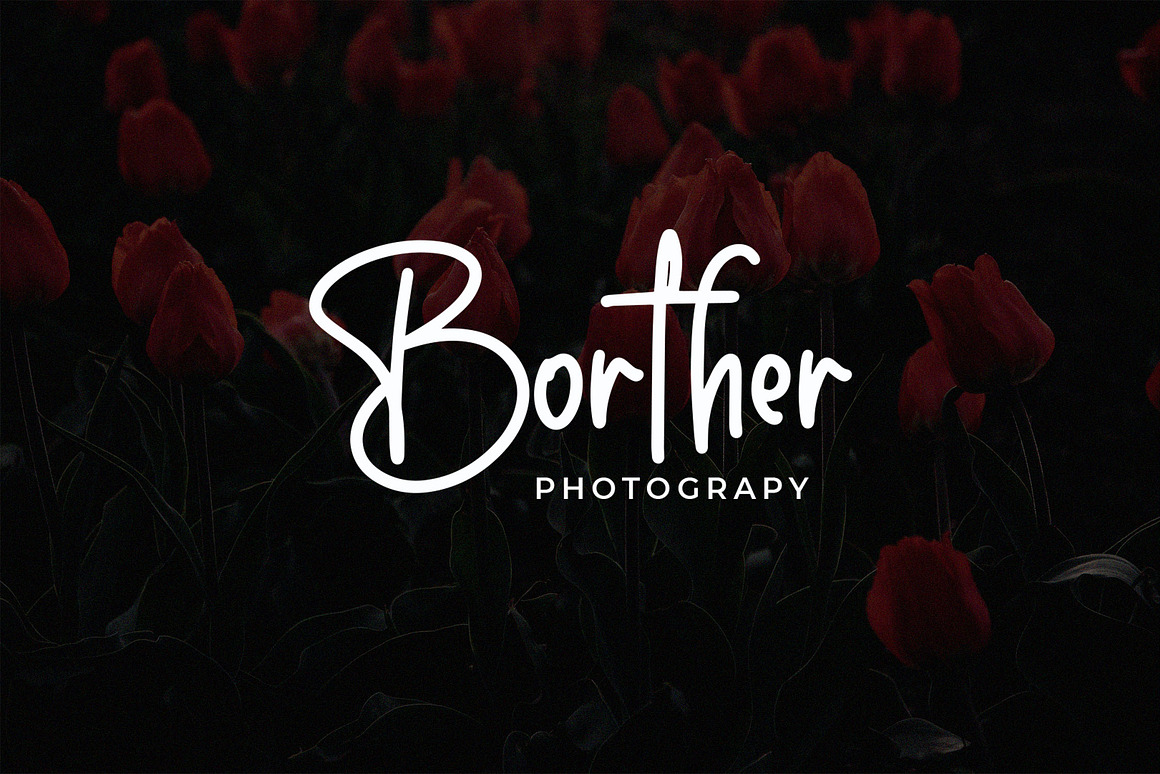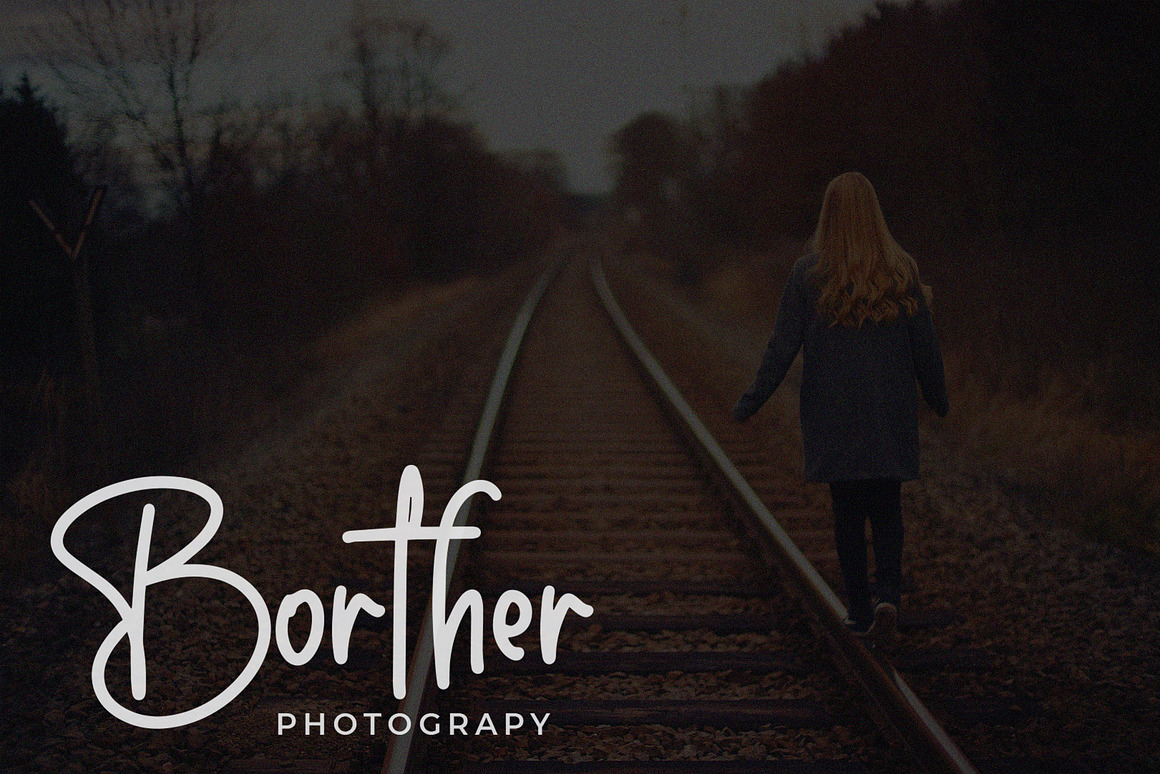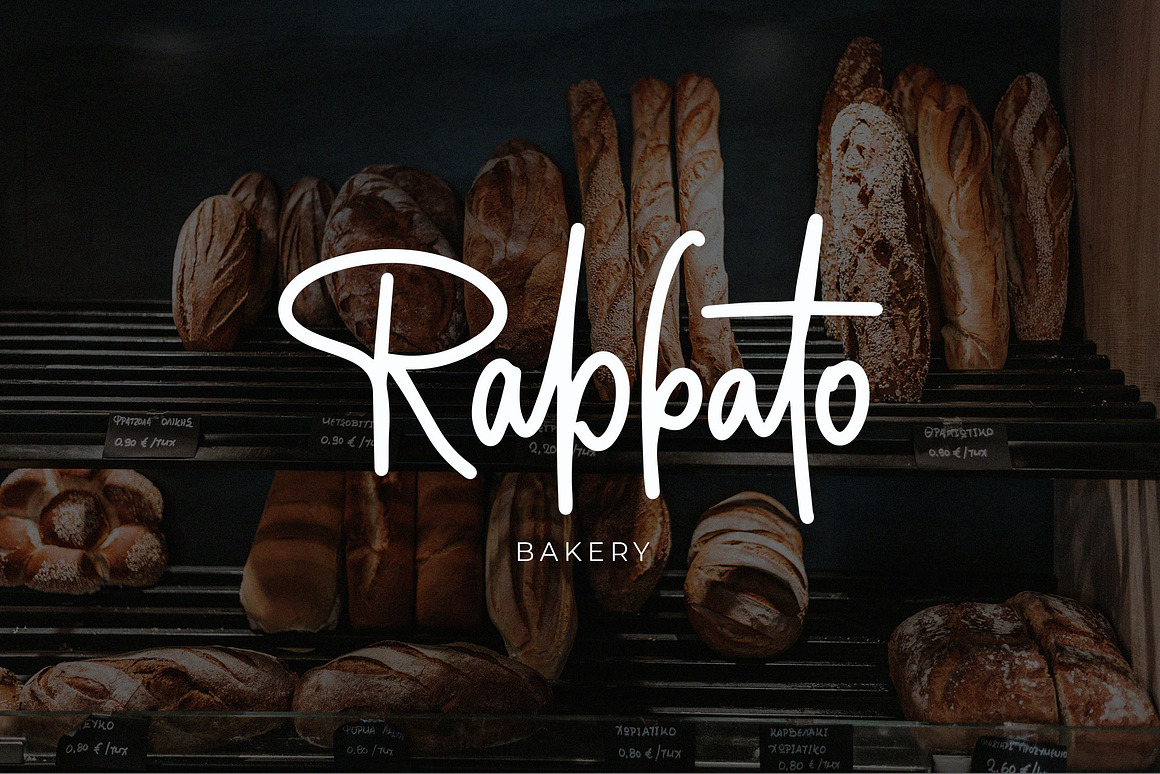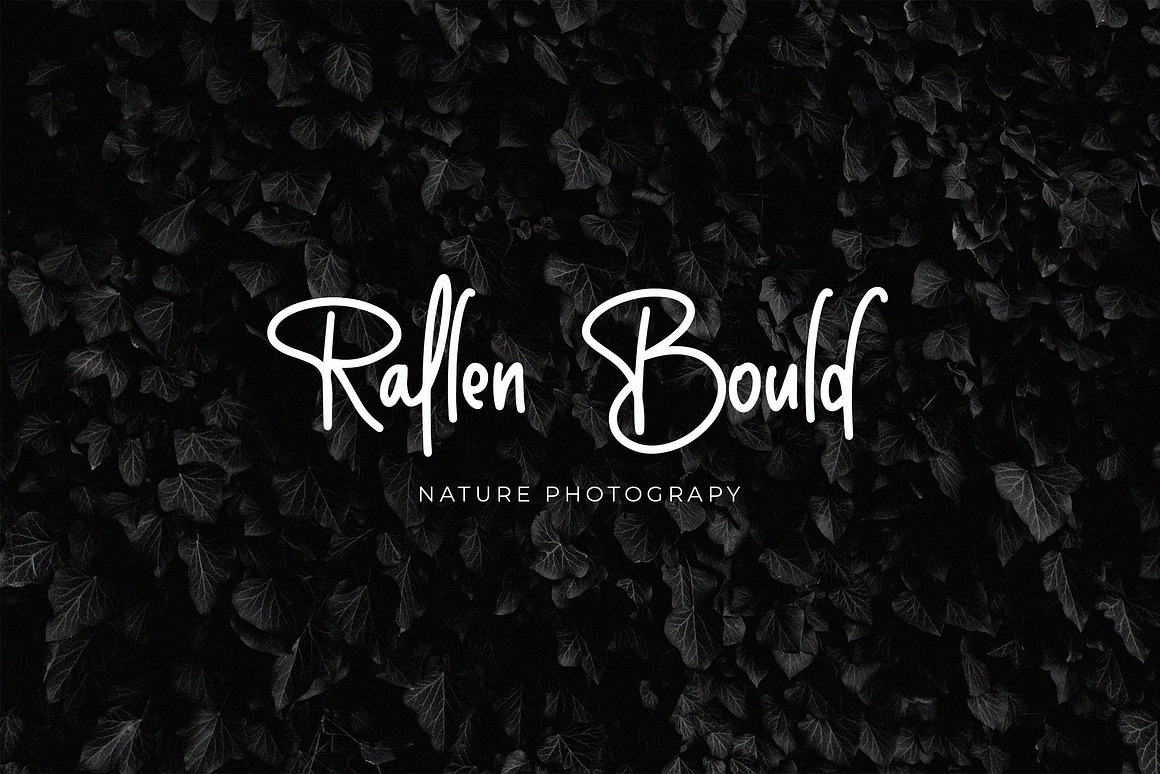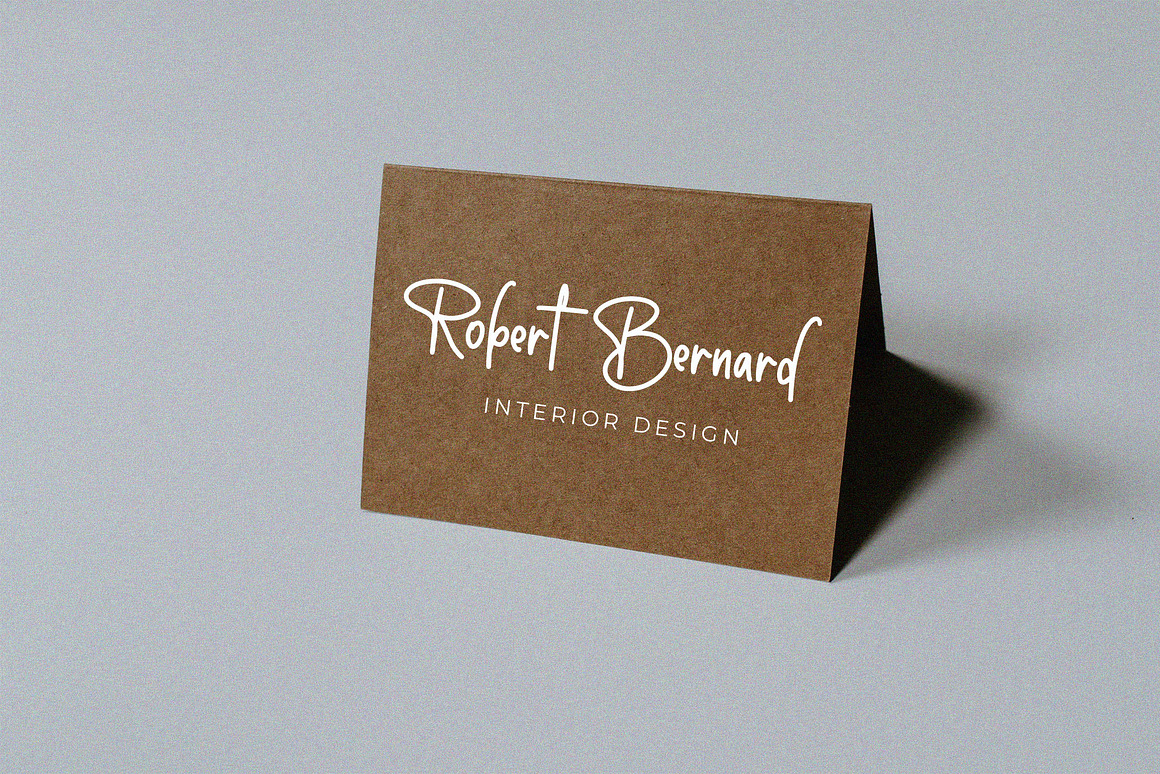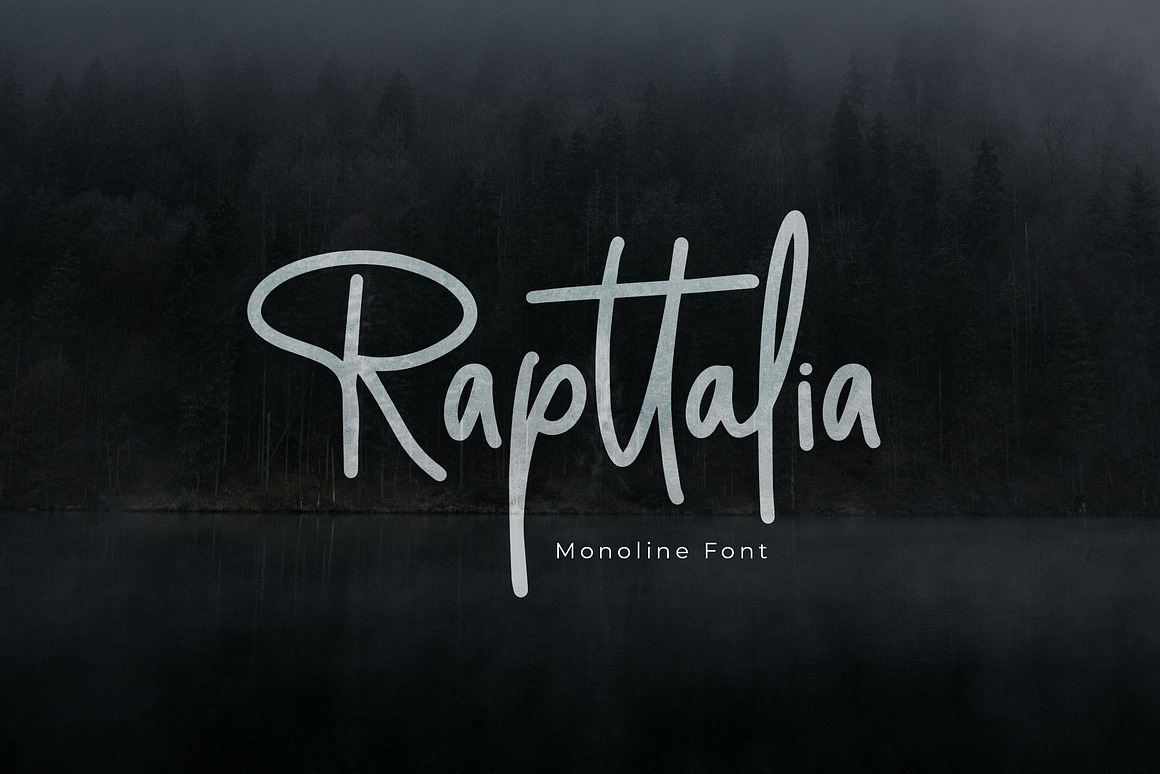
Rapttalia Monoline Handwriting Font
Rapttalia - Elegant Monoline Handwriting Font Introducing Rapttalia, a stunning handwriting font that features a beautiful monoline style. Designed with unique character shapes, this font adds a touch of elegance and sophistication to your projects. Ideal for branding, invitations, and other creative applications, Rapttalia enhances the visual appeal of your designs, making them truly stand out. We appreciate your interest in downloading Rapttalia, and we're committed to providing regular updates to keep this font fresh and versatile for all your design needs.